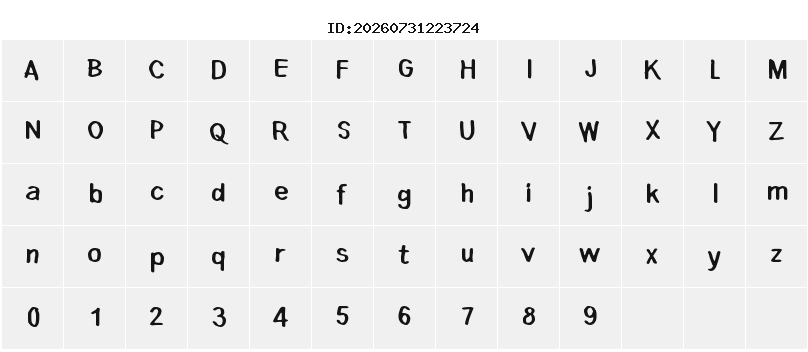
Lauantaiaamu 7:25 Preview
• Font Name: Lauantaiaamu 7:25
• Designer: junkohanhero
About Lauantaiaamu 7:25.ttf
Lauantaiaamu 7:25.ttf is a modern, elegant sans-serif font designed for ultimate readability and visual harmony. Perfect for branding, headlines, web design, and print materials.